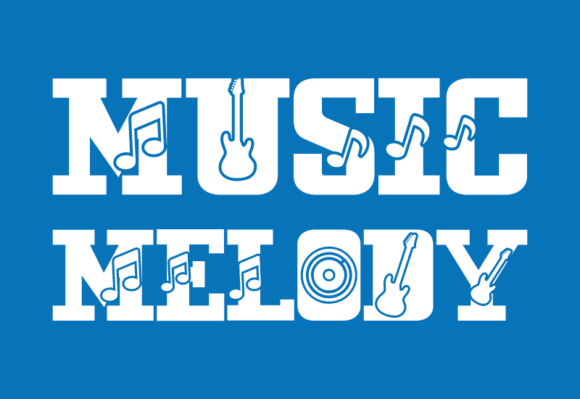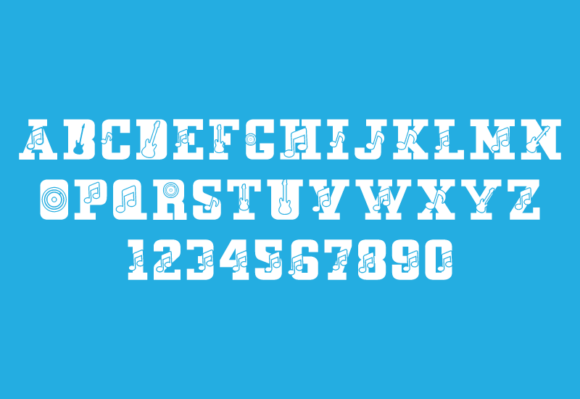
Introduction to Music Melody Font
Introducing Music Melody, an ornate font infused with intricate precision.
Designed with utmost attention to detail, this font emanates a minimalist sophistication, as light and fluid as a transcendent melody It serves as a sublime marriage of exactitude and elegance, subtly woven together to bring a rhythmic cadence to your content.
Key Features of Music Melody Font